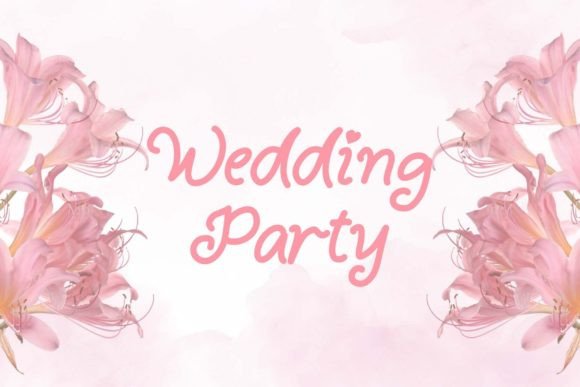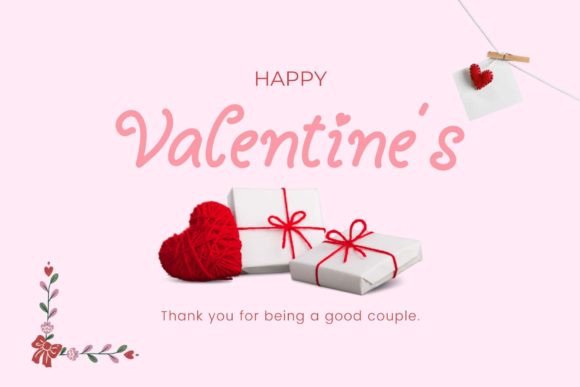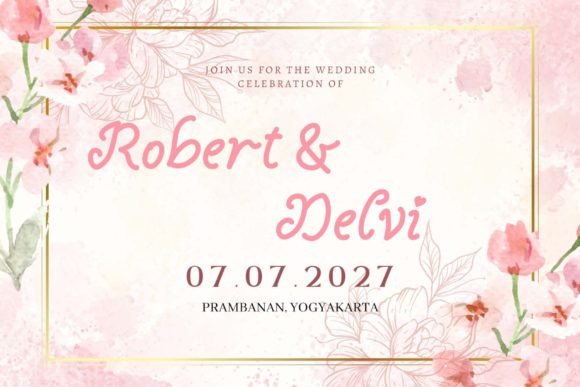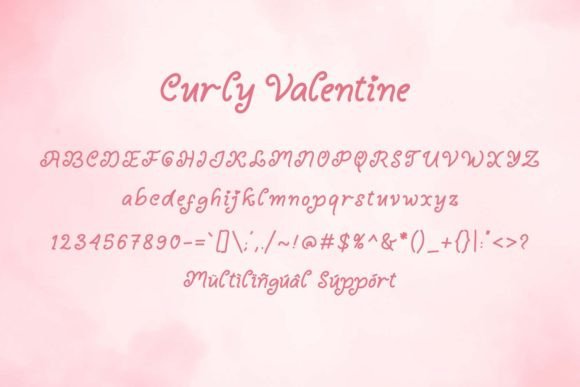
Introducing Curly Valentine Font: The Perfect Choice for Your Design Needs
Are you looking for a unique and beautiful font to make your designs stand out? Look no further than the Curly Valentine Font. This stunning curly display font is perfect for a variety of design projects, from posters and banners to valentines, weddings, and more.
What Makes Curly Valentine Font Special?
The Curly Valentine Font is a one-of-a-kind font that is sure to capture the attention of your audience. Its curly and playful design makes it perfect for creating eye-catching designs that are both fun and elegant. The font comes equipped with uppercase letters, lowercase letters, numerals, punctuation, and multilingual support, making it versatile and easy to use.
Key Features of Curly Valentine Font
- Uppercase and Lowercase Letters: The Curly Valentine Font includes both uppercase and lowercase letters, allowing you to create a wide range of designs.
- Numerals and Punctuation: The font also includes numerals and punctuation marks, making it easy to create complete and professional-looking designs.
- Multilingual Support: With multilingual support, you can use the Curly Valentine Font to create designs in multiple languages.
- Curly and Playful Design: The font’s curly and playful design makes it perfect for creating fun and elegant designs.
Uses of Curly Valentine Font
The Curly Valentine Font is perfect for a variety of design projects, including:
- Posters: Create eye-catching posters for events, promotions, or announcements.
- Banners: Design beautiful banners for websites, social media, or marketing campaigns.
- Valentines: Create romantic and personalized valentines for loved ones.
- Weddings: Use the Curly Valentine Font to create beautiful wedding invitations, decorations, and more.
- Gifts: Design personalized gifts, such as mugs, t-shirts, or tote bags.
- Invitations: Create custom invitations for parties, events, or special occasions.
- Branding: Use the Curly Valentine Font to create a unique and memorable brand identity.
- Stickers: Design fun and colorful stickers for laptops, water bottles, or anything else.
- Christmas, Spring, Winter, and More: The Curly Valentine Font is perfect for creating seasonal designs, such as Christmas cards, spring posters, or winter stickers.
Why Choose Curly Valentine Font?
The Curly Valentine Font is a great choice for designers and crafters for several reasons:
- Unique Design: The font’s curly and playful design makes it stand out from other fonts.
- Versatile: The Curly Valentine Font can be used for a wide range of design projects.
- High-Quality: The font is of high quality, with clear and crisp lines.
In conclusion, the Curly Valentine Font is a beautiful and unique curly display font that is perfect for a variety of design projects. With its curly and playful design, multilingual support, and versatility, it’s a great choice for designers and crafters. Whether you’re creating posters, valentines, weddings, or gifts, the Curly Valentine Font is sure to make your designs stand out.